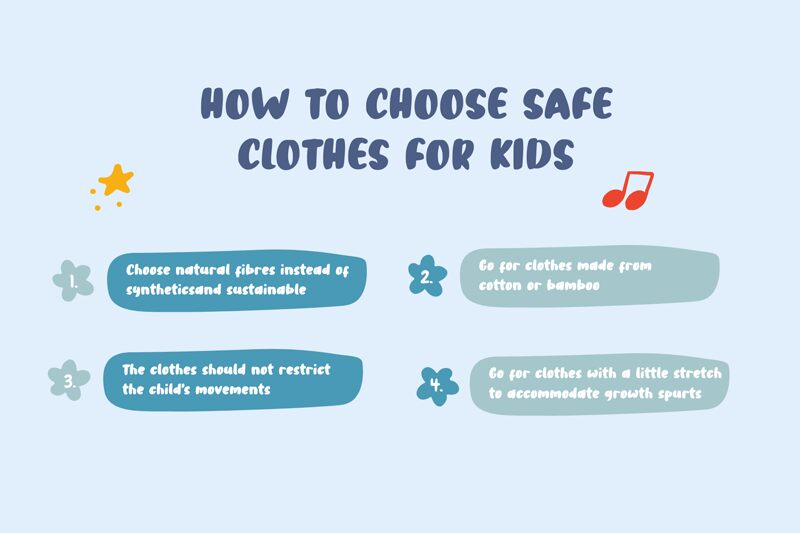
Tahu Kotak
Tahu Kotak, designed by sronstudio, stands out as a playful and impactful display font that immediately grabs attention. With its comic style and extra-bold weight, this typeface exudes a cheerful personality that is perfect for injecting a sense of fun into any creative project. The rounded edges give it a friendly appearance, while the substantial weight ensures excellent readability even from a distance.
Visually, Tahu Kotak boasts an aesthetic appeal that is both modern and versatile. Its unique characteristics are evident in the smooth curves and soft terminations of the letters, which make it not only engaging but also approachable. This font's style would be particularly suitable for projects aimed at younger audiences or designs intended to convey lightheartedness and humor.
In terms of application, Tahu Kotak's bold presence makes it an ideal choice for headlines, posters, children's books, branding initiatives, and any digital or print medium where standing out is key. Its distinctiveness ensures that messages crafted with this font will leave a lasting impression on viewers while maintaining an air of whimsy and creativity.